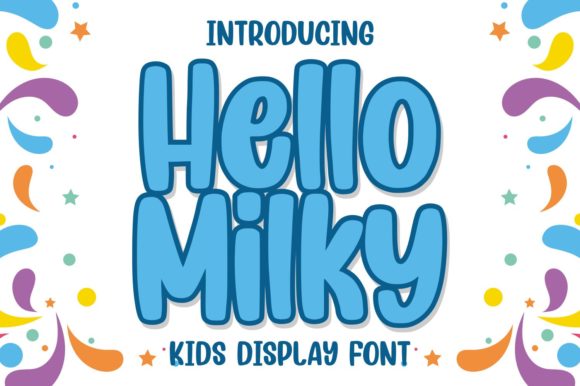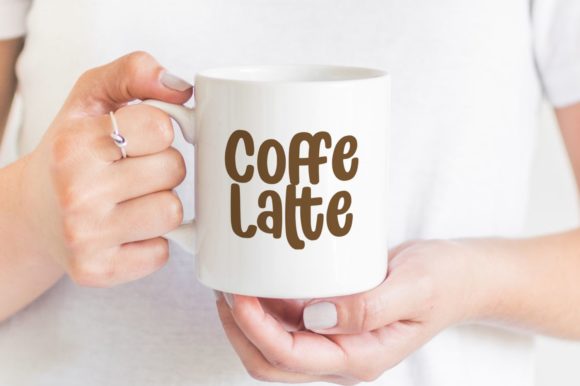
Hello Milky Font
Hello Milky is a sweet and friendly display font. Its natural and unique style makes it incredibly fitting to a large pool of designs. The only limit is your imagination!